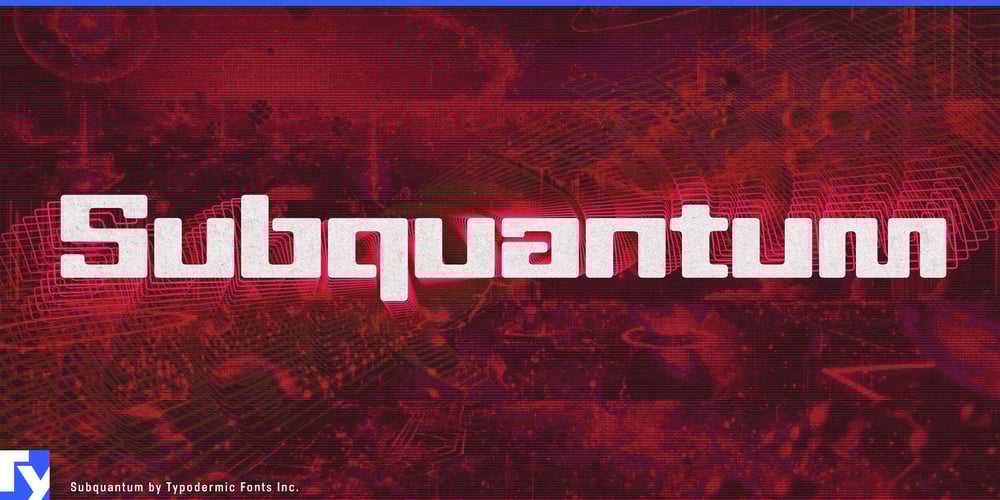
Subquantum
Subquantum font
Subquantum Font Family was designed by Ray Larabie and published by Typodermic. Subquantum contains 1 styles and family package options. Subquantum pushes the boundaries of typographic design, merging the precision of scientific inquiry with the bold aesthetics of futuristic vision. This squarish, sci-fi techno typeface, with its meticulously crafted rounded corners, evokes the sleek minimalism of modern design while projecting an aura of cutting-edge innovation.Engineered for maximum visual impact, Subquantum’s heavy vertical strokes and streamlined horizontals create a commanding presence that demands attention. It’s not just a font—it’s a visual statement, perfectly suited for display purposes that require an authoritative and forward-thinking voice. From interstellar branding to avant-garde product launches, Subquantum speaks the language of tomorrow. The typeface’s continuous curves and pathfinding forms echo the spirit of exploration, making it an ideal choice for projects that push the envelope of creativity and communication. Its letterforms navigate the white space with the precision of a spacecraft charting unknown galaxies, guiding the viewer’s eye through your design with purposeful intent.Subquantum isn’t just about looks—it’s built for versatility in a globalized world. With an extensive array of currency symbols, OpenType fractions, and support for a vast spectrum of Latin-based languages, it’s equipped to carry your message across borders and beyond. Whether you’re designing for a multinational corporation or a multilingual audience, Subquantum ensures your typography is as universal as it is unique. In a world where the future arrives faster every day, Subquantum stands ready to articulate your vision. It’s more than a typeface—it’s a portal to possibilities yet unexplored, a tool for those who dare to dream in dimensions beyond the ordinary. When your design needs to resonate with the rhythm of progress and innovation, Subquantum is the voice of choice.Choose Subquantum and watch as your creations transcend the present, speaking to audiences in a visual language that’s firmly rooted in the aesthetics of tomorrow. It’s time to elevate your design to quantum levels—let Subquantum be your guide to typographic frontiers unknown.